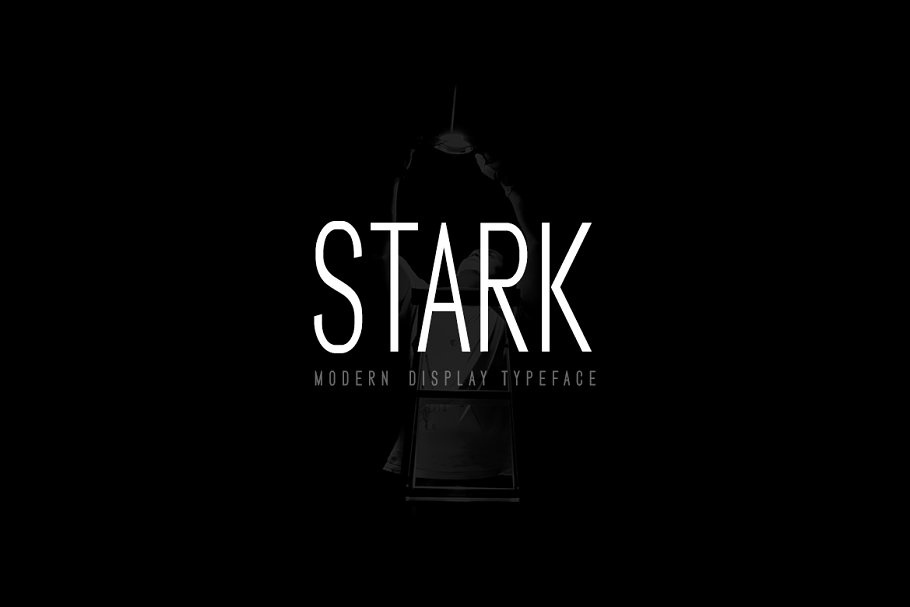
Stark Font
The Stark Font excels in various design applications including minimalist corporate branding, modern architectural signage, contemporary art gallery materials, sleek product packaging, high-end fashion labels, sophisticated web interfaces, clean editorial layouts, luxury automotive branding, and refined technology company identities. This powerful typeface brings bold simplicity to both digital platforms and premium print materials.
What makes Stark Font exciting is its uncompromising minimalist aesthetic that strips away unnecessary elements to reveal pure typographic strength. The font features clean, geometric letterforms with precise angles and strategic negative space that create maximum impact through deliberate restraint. Its reductive design philosophy combines Scandinavian minimalism with contemporary functionality, creating visual experiences that communicate through powerful simplicity and confident presence.
The Stark Font family includes multiple weights and styles: Thin, Light, Regular, Medium, Bold, Black, and corresponding Italic variations. Each style maintains the signature minimalist character while offering designers comprehensive flexibility for sophisticated brand systems and contemporary layouts. The complete character set supports international languages and includes essential symbols, mathematical operators, and refined punctuation marks perfect for professional applications.
The technical excellence of Stark Font includes meticulously calibrated letter spacing, precision-engineered geometric construction, and optimal cross-platform performance. Whether you're designing bold corporate identities or complex information systems, this font delivers consistent clarity. The balanced proportions work exceptionally well in large-scale architectural applications while maintaining perfect readability in detailed text blocks.
Creative studios appreciate how Stark Font elevates brand communication through its refined minimalist aesthetic. The font's confident simplicity makes it ideal for luxury automotive brands, high-end consulting firms, contemporary art institutions, and premium lifestyle companies seeking to convey sophistication and authority. Its bold character complements various design styles while establishing powerful brand personalities in upscale markets.
From precise business cards to monumental building signage, Stark Font maintains its commanding presence across all applications. The font's robust construction ensures visual impact in competitive luxury environments while its minimalist details demonstrate exceptional design restraint, making it an essential tool for designers creating memorable premium brand experiences.